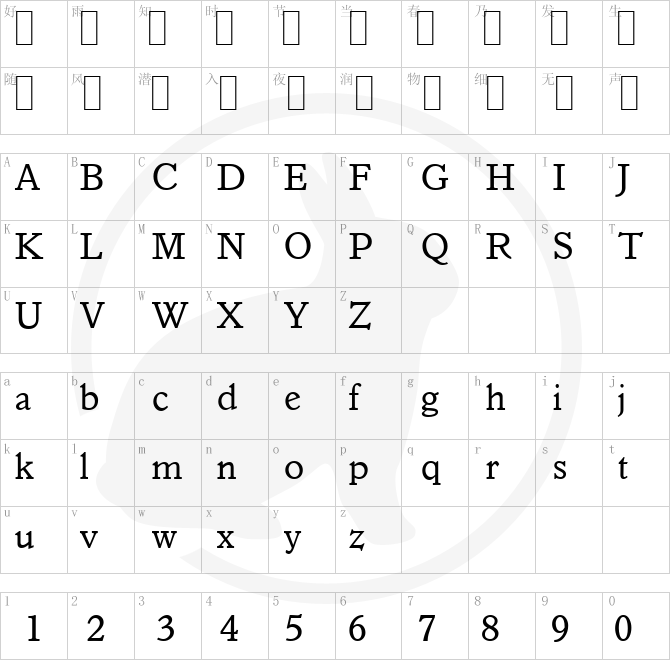
I832-Slab-Regular.ttf is a very beautiful artistic font, I832-Slab-Regular.ttf is widely used in the design and printing of various books and pictures,I832-Slab-Regular.ttf has a strong visual impact,I832-Slab-Regular.ttf is a commonly used font in newspapers, magazines and books, and is used in posters, e-commerce Poster design, store design, logo design, font design and other fields.I832-Slab-Regular.